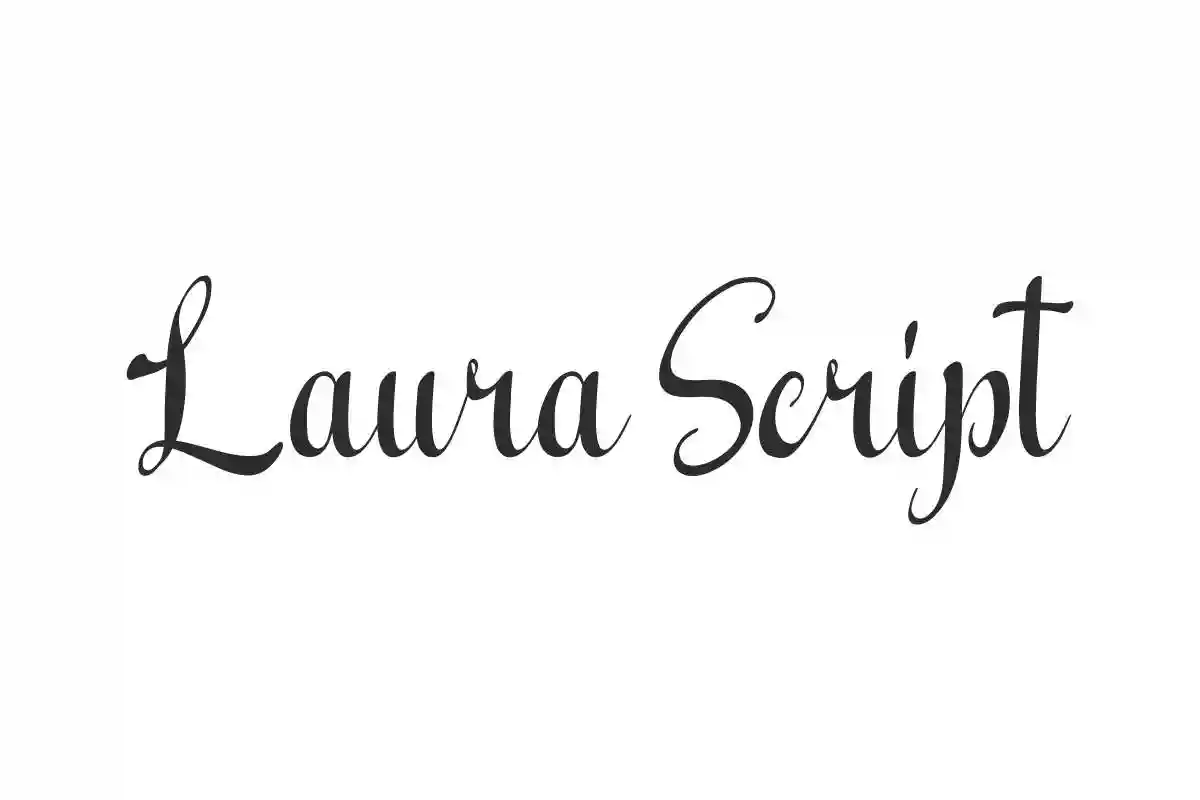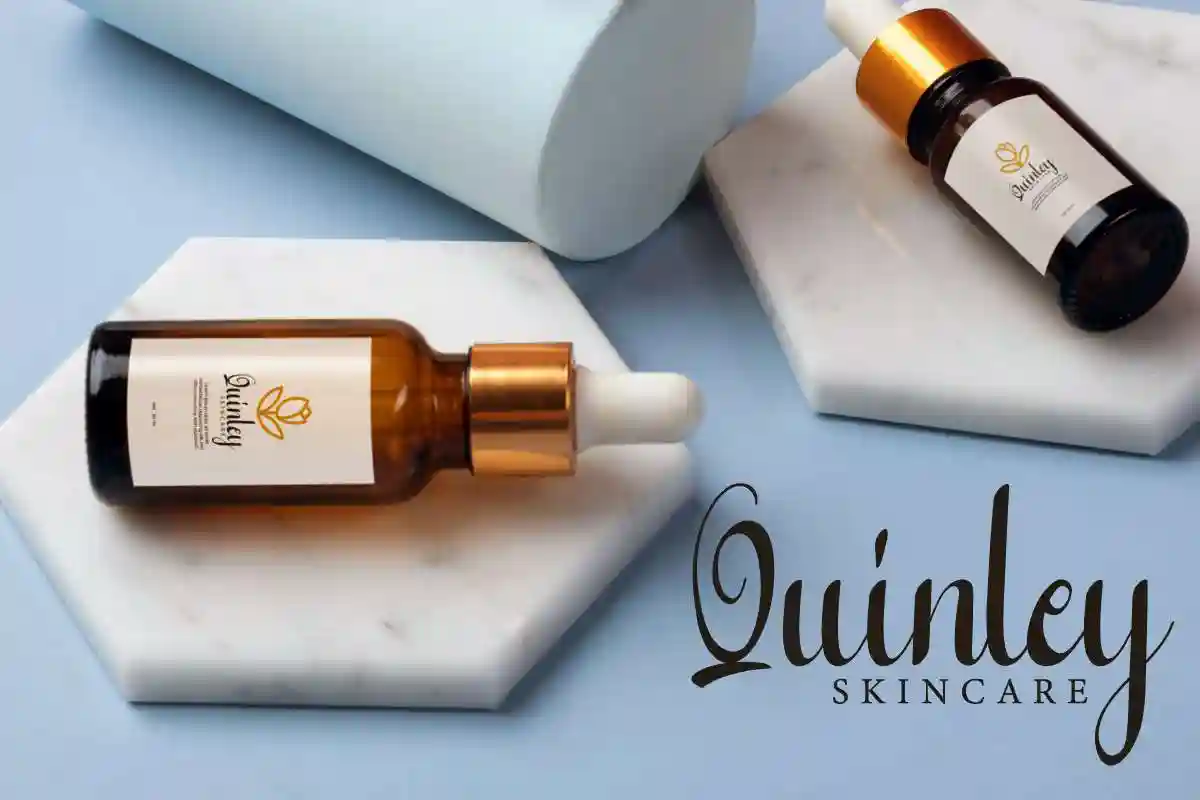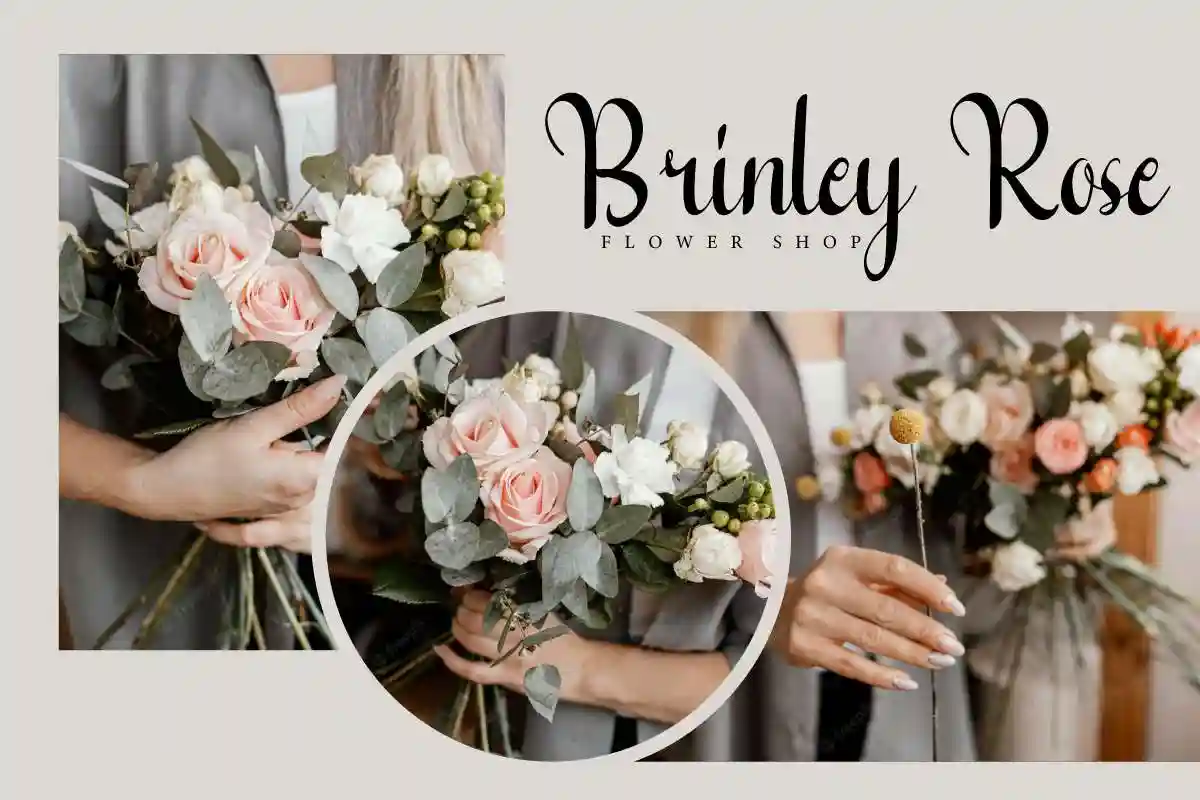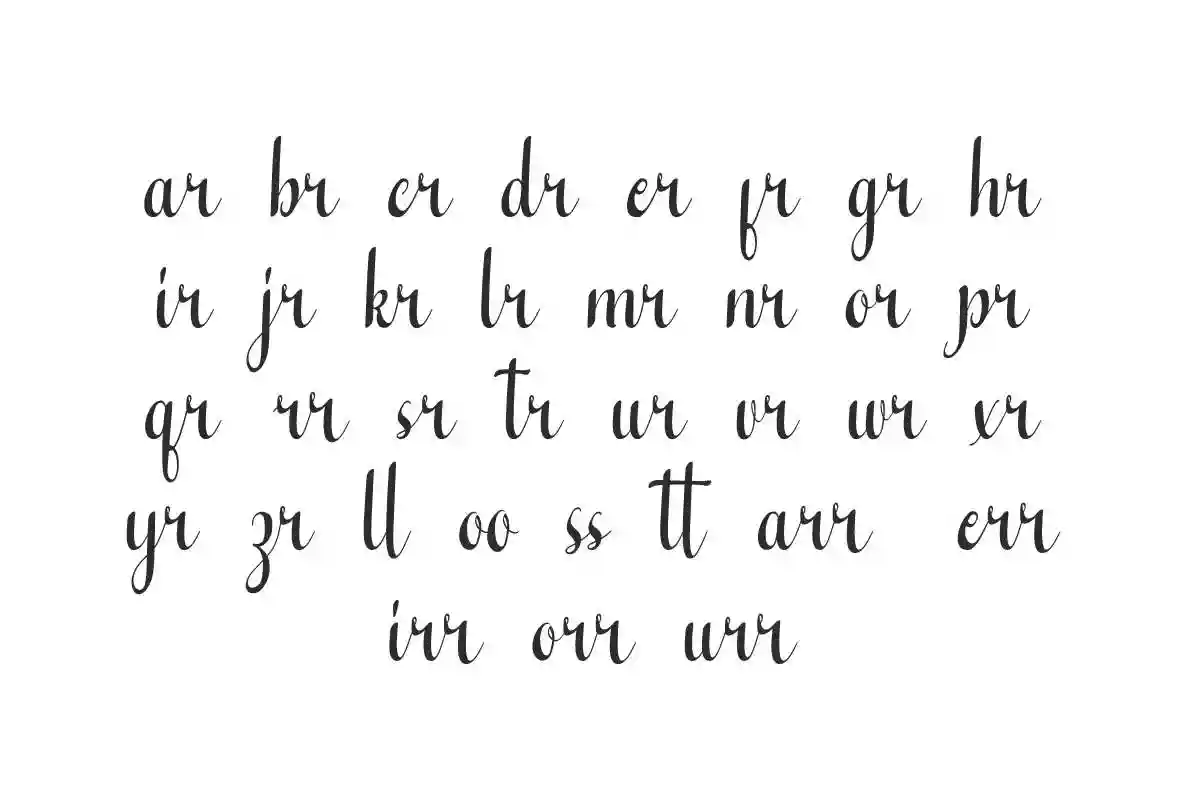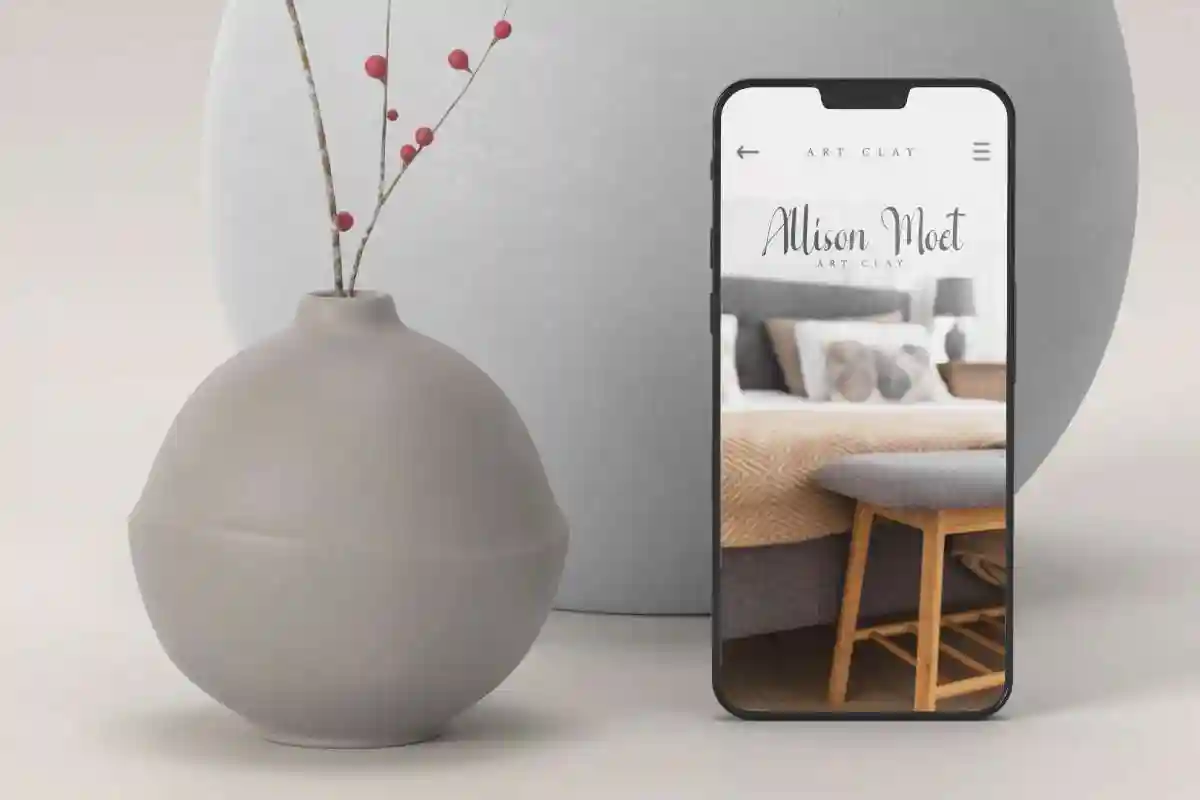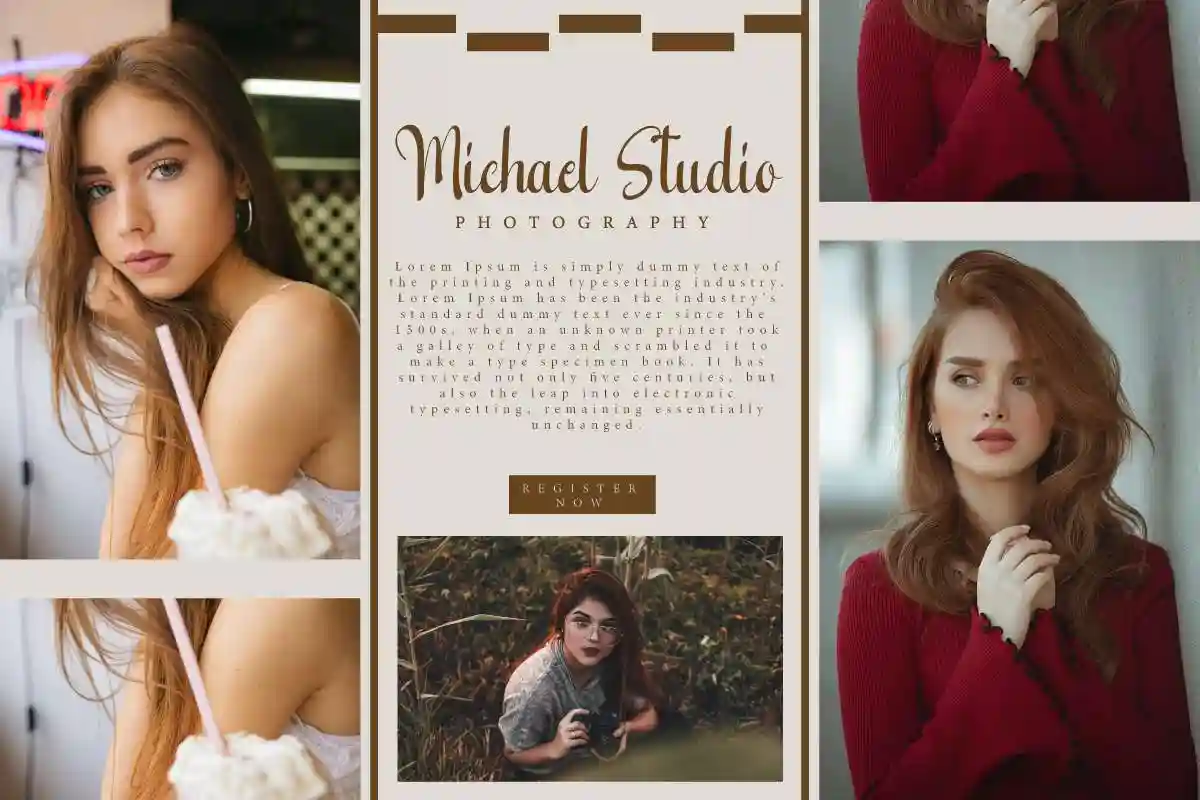
Laura Script Font is a special script font with unique calligraphic concept, created by NihStudio. Use this aesthetic font on embossed design, skincare brand, etc.
Laura Script Font is a special script font with a unique calligraphy look. The balance of thick and thin from a flawless brush and easy to read that will add to the beauty of your creative designs, such as apps, brochure, cover, embossed logo, label, magazine catalog, packaging design, stationery, title, website, and much more!
Laura Script Font comes with a full set of Uppercase and Lowercase Basic Characters, Number, Punctuation, Symbol. Also equipped with Ligature characters that you can choose and use to make it stand out, this is the technique of tying two letters together to perfection. Use this for your business industry such as, fashion, flower shop, furniture, photography, pottery art, skincare, etc.